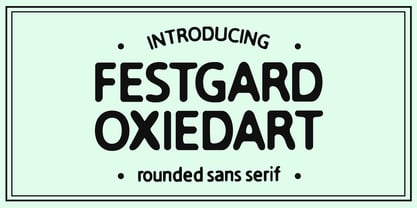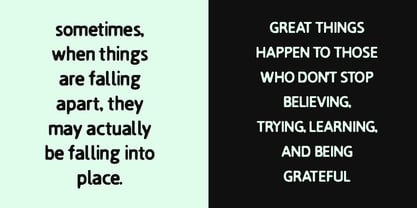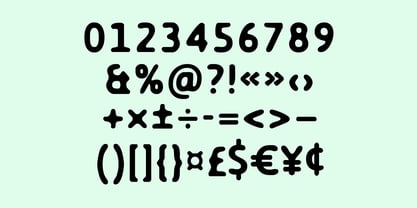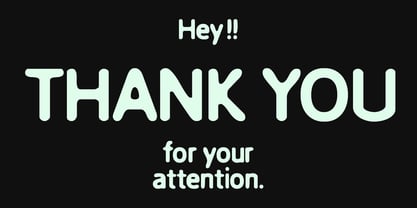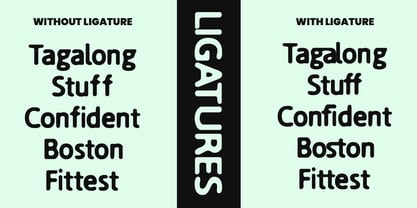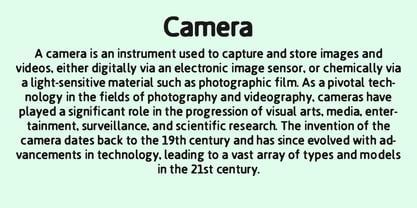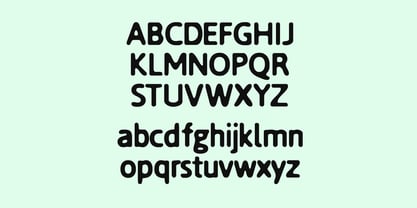
MC Festgard Oxiedart
by Maulana Creative
The MC Festgard Oxiedart Font Family was designed by Gilang Maulana and published by Maulana Creative. MC Festgard Oxiedart contains 1 styles. More about this family
Festgard Oxiedart is a rounded sans serif font. With bold stroke, fun character with a bit of ligatures. To give you an extra creative work. Festgard Oxiedart font support multilingual more than 100+ language. This font is good for logo design, Social media, Movie Titles, Books Titles, a short text even a long text letter and good for your secondary text font with sans or serif. Make a stunning work with Festgard Oxiedart font.
Designers: Gilang Maulana
Foundry: Maulana Creative